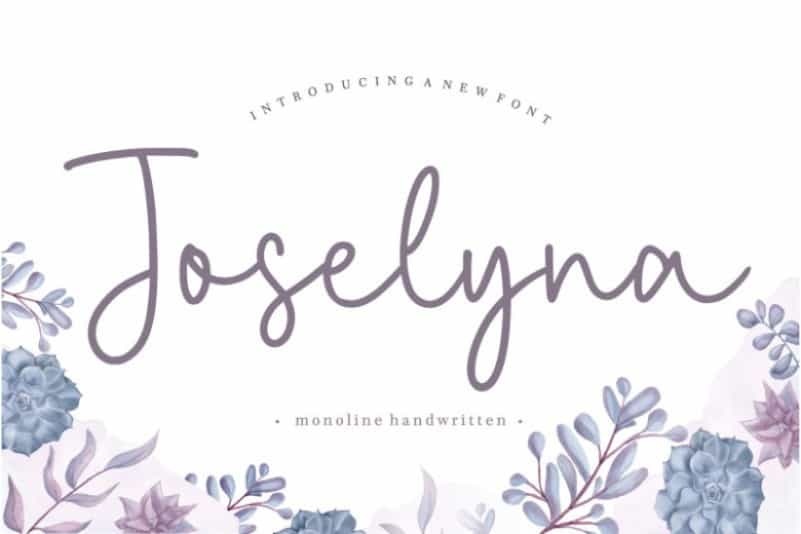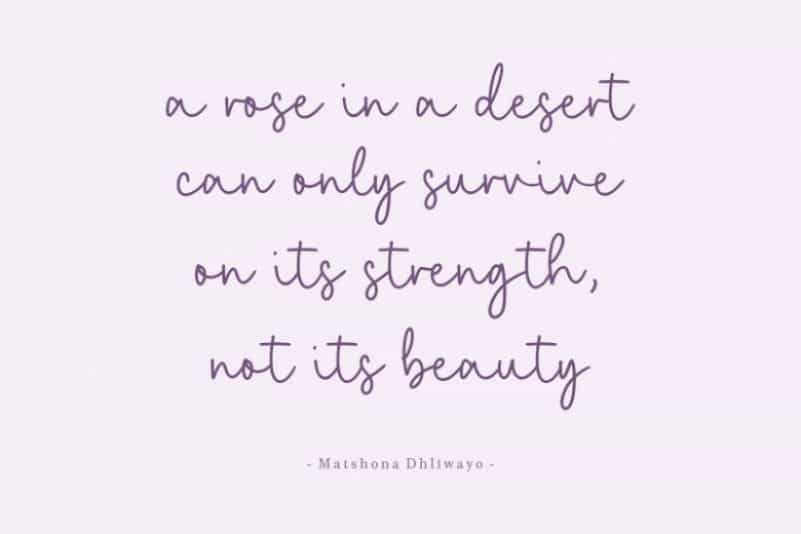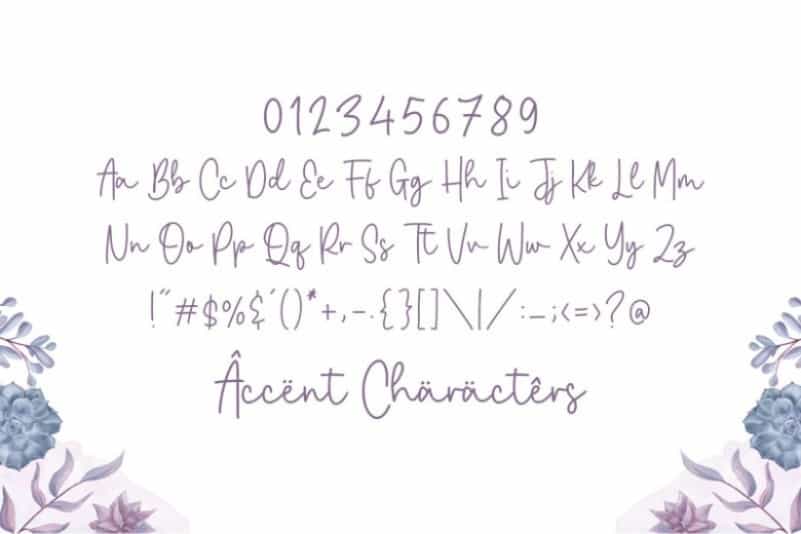
Joselyna is Monoline Handwritten Font. It’s ideal for packaging of products as well as branding projects, magazines social media, wedding or to simply convey words above the background. The font comes with TTF, Joselyna also multilingual support.